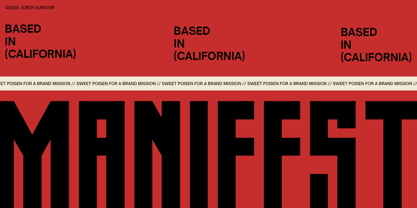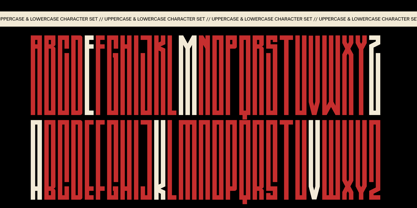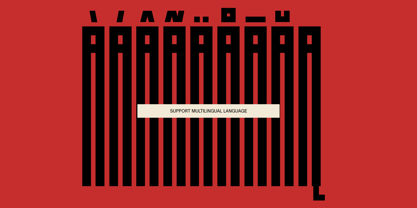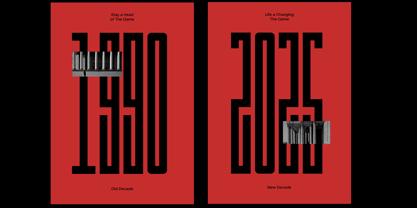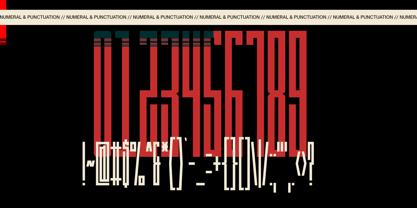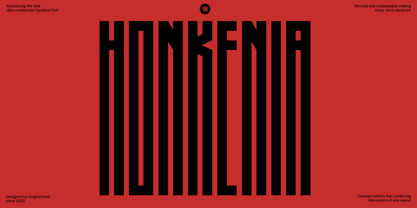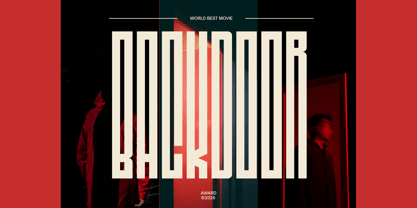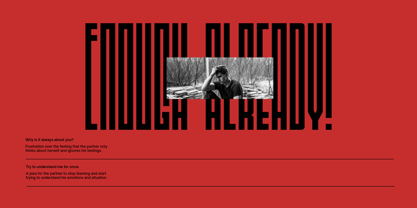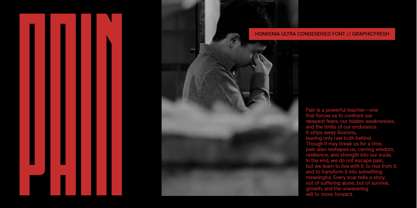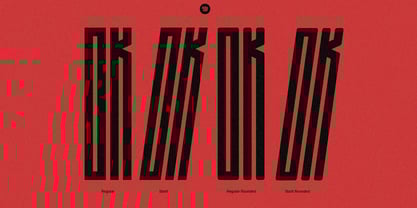
Honkenia
by Graphicfresh
The Honkenia Font Family was designed by Muhammad Husni Haikal and published by Graphicfresh. Honkenia contains 4 styles and family package options.
Honkenia Ultra Condensed is a bold, narrow display typeface designed to make a statement. With its ultra-slim letterforms, sharp lines, and vintage-futuristic vibe, it’s the perfect choice for logos, posters, tech branding, retro-futuristic designs, and anything that needs to stand out in tight spaces.
Inspired by condensed type from retro sci-fi covers and high-impact posters, Honkenia delivers both clean modernism and nostalgic flair. Each glyph is meticulously crafted to balance readability with attitude—making your titles loud, confident, and unmistakably stylish.
Designers: Muhammad Husni Haikal
Publisher: Graphicfresh
Foundry: Graphicfresh